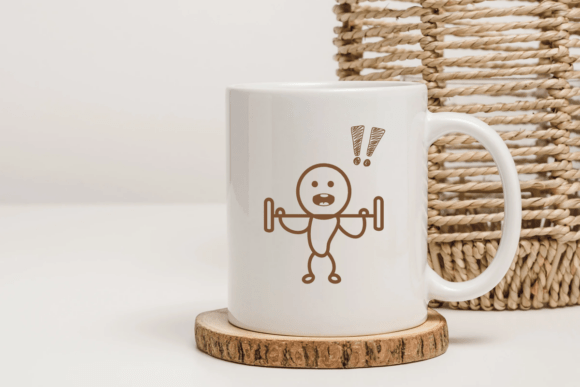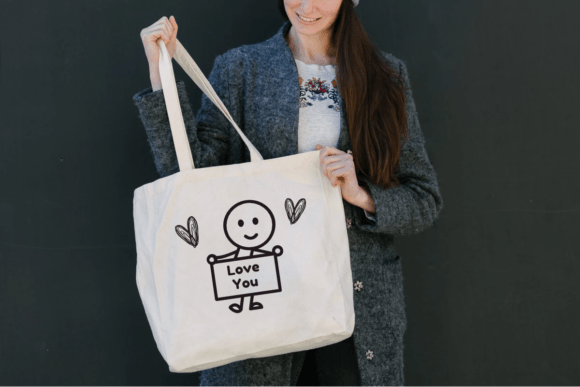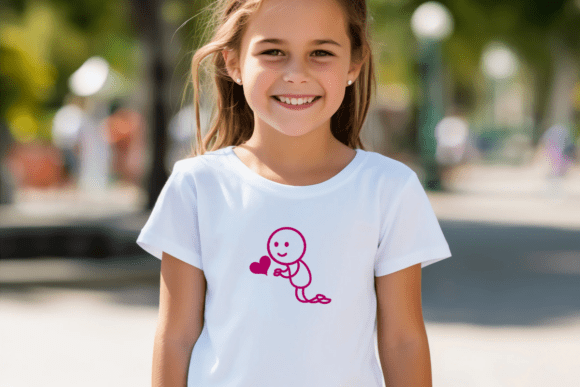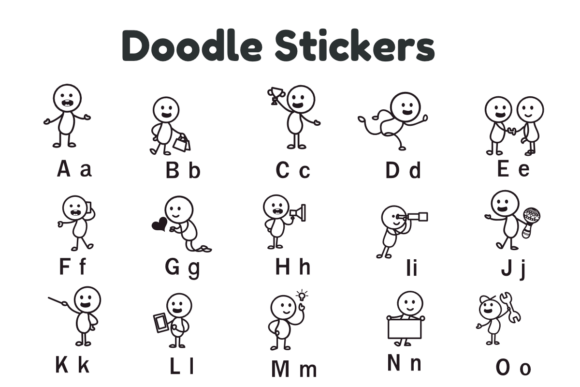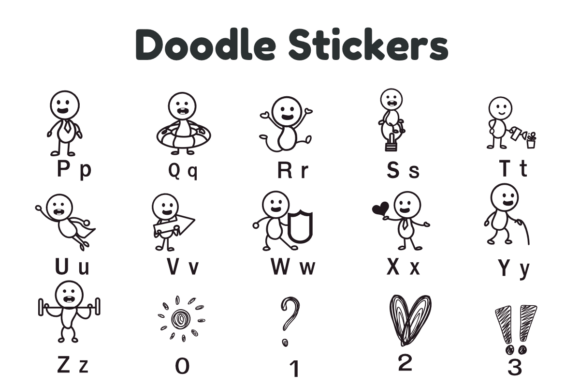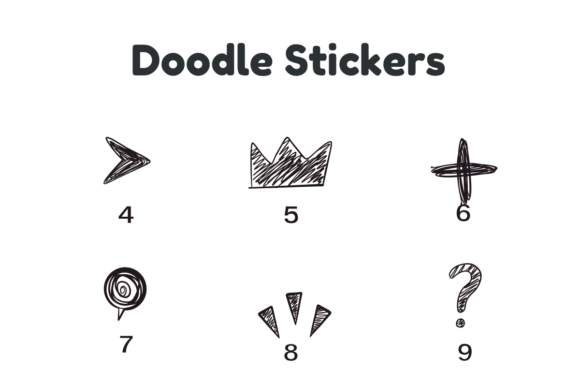
Doodle Stickers Font: Add a Touch of Whimsy to Your Designs
Are you looking for a fun and playful way to add some personality to your designs? Look no further than the Doodle Stickers Font! This charming dingbats font features adorable stick figure illustrations in various poses and activities, making it perfect for a wide range of creative projects.
What is Doodle Stickers Font?
Doodle Stickers is a unique and expressive font that brings a touch of whimsy to any design. Each letter is replaced with a delightful stick figure illustration, showcasing a range of emotions and activities. From happy faces to dancing figures, this font is sure to add a smile to anyone’s face.
Doodle Stickers Font is ideal for a variety of creative projects, including:
- Stickers: Add a personal touch to your stickers with cute and playful doodles.
- Planners: Make your planners more engaging and fun with doodle illustrations.
- Scrapbooking: Add a touch of whimsy to your scrapbook pages with this charming font.
- Kids’ projects: Create fun and interactive projects for kids, such as coloring books, activity sheets, and more.
- Social media graphics: Add some personality to your social media graphics, such as Instagram posts, Facebook graphics, and more.
- Fun branding: Use Doodle Stickers Font to create a playful and memorable brand identity.
Easy to Use
One of the best things about Doodle Stickers Font is how easy it is to use. Simply type a letter, and watch your design come to life with an expressive character! The font is designed to be user-friendly, making it perfect for designers and crafters of all skill levels.
Here are some of the key features that make Doodle Stickers Font so special:
- Adorable stick figure illustrations: Each letter is replaced with a cute and playful stick figure illustration.
- Variety of poses and activities: The font features a range of illustrations, showcasing different emotions and activities.
- Easy to use: Simply type a letter to add a doodle to your design.
- Perfect for creative projects: Ideal for stickers, planners, scrapbooking, kids’ projects, social media graphics, and fun branding.
Tips for Using Doodle Stickers Font
Here are some tips for getting the most out of Doodle Stickers Font:
- Experiment with different colors: Try out different colors and color combinations to add depth and interest to your designs.
- Mix and match illustrations: Combine different illustrations to create a unique and personalized design.
- Use in combination with other fonts: Pair Doodle Stickers Font with other fonts to create a visually appealing design.
Doodle Stickers Font is a fun and playful dingbats font that is perfect for adding a touch of whimsy to your designs. With its adorable stick figure illustrations and easy-to-use design, this font is ideal for a wide range of creative projects. Whether you’re a designer, crafter, or simply someone who loves to have fun, Doodle Stickers Font is sure to bring a smile to your face and inspire your creativity.
Get Creative with Doodle Stickers Font